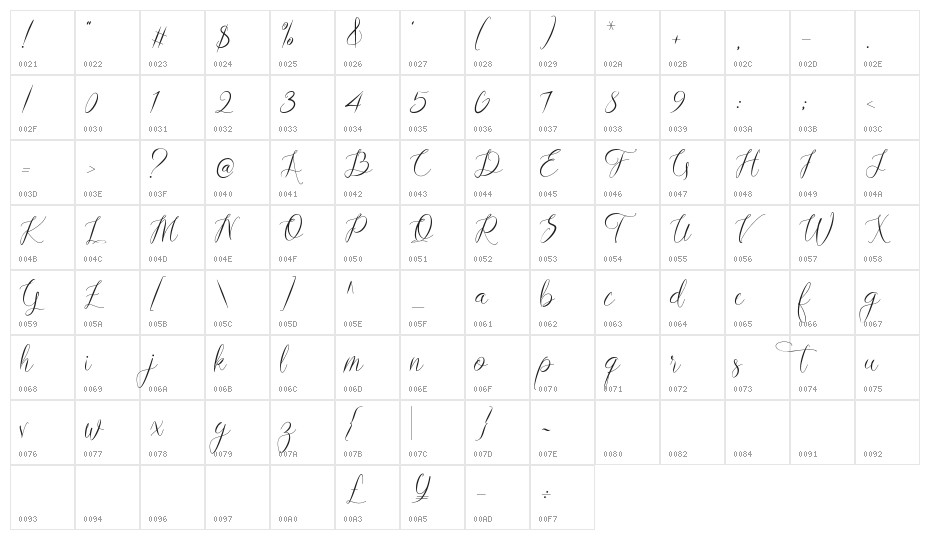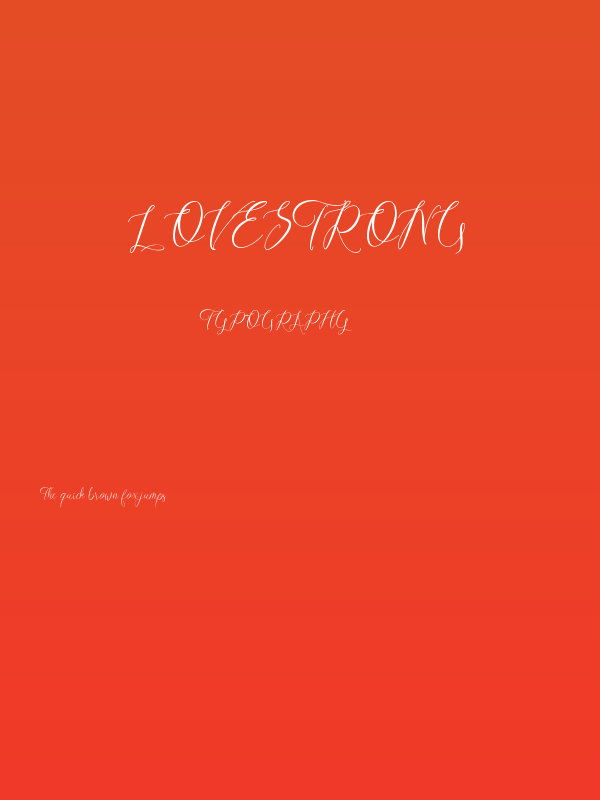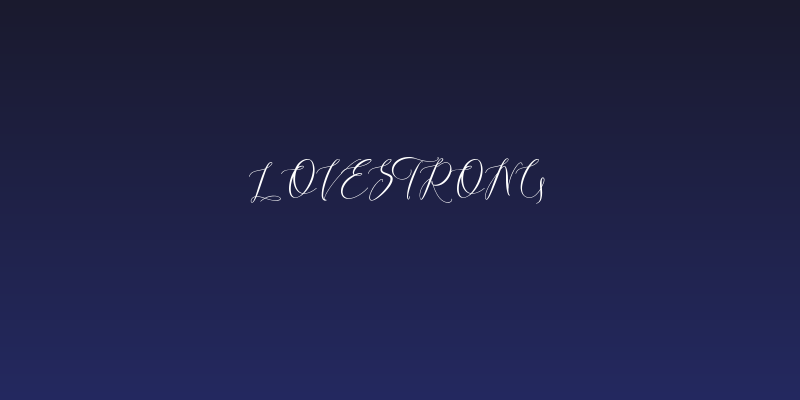
Lovestrong Font
Lovestrong Description
This elegant script font features a flowing, cursive style with intricate loops and swashes. Each letter is carefully crafted to connect seamlessly, creating a harmonious and sophisticated appearance. The uppercase letters are particularly ornate, with extended flourishes that add a touch of grandeur. The lowercase letters maintain a consistent rhythm, enhancing readability while preserving the decorative nature of the font. The numerals and special characters are designed to match the overall aesthetic, ensuring a cohesive look across all text elements. This font exudes a sense of romance and elegance, making it ideal for formal invitations, branding, and artistic projects.
| Overall Style | Elegant, Romantic |
| Use Case | Headlines, Invitations, Artistic projects |
| Proposed Projects | Ideal for wedding invitations, elegant branding, artistic projects, and decorative headings. |